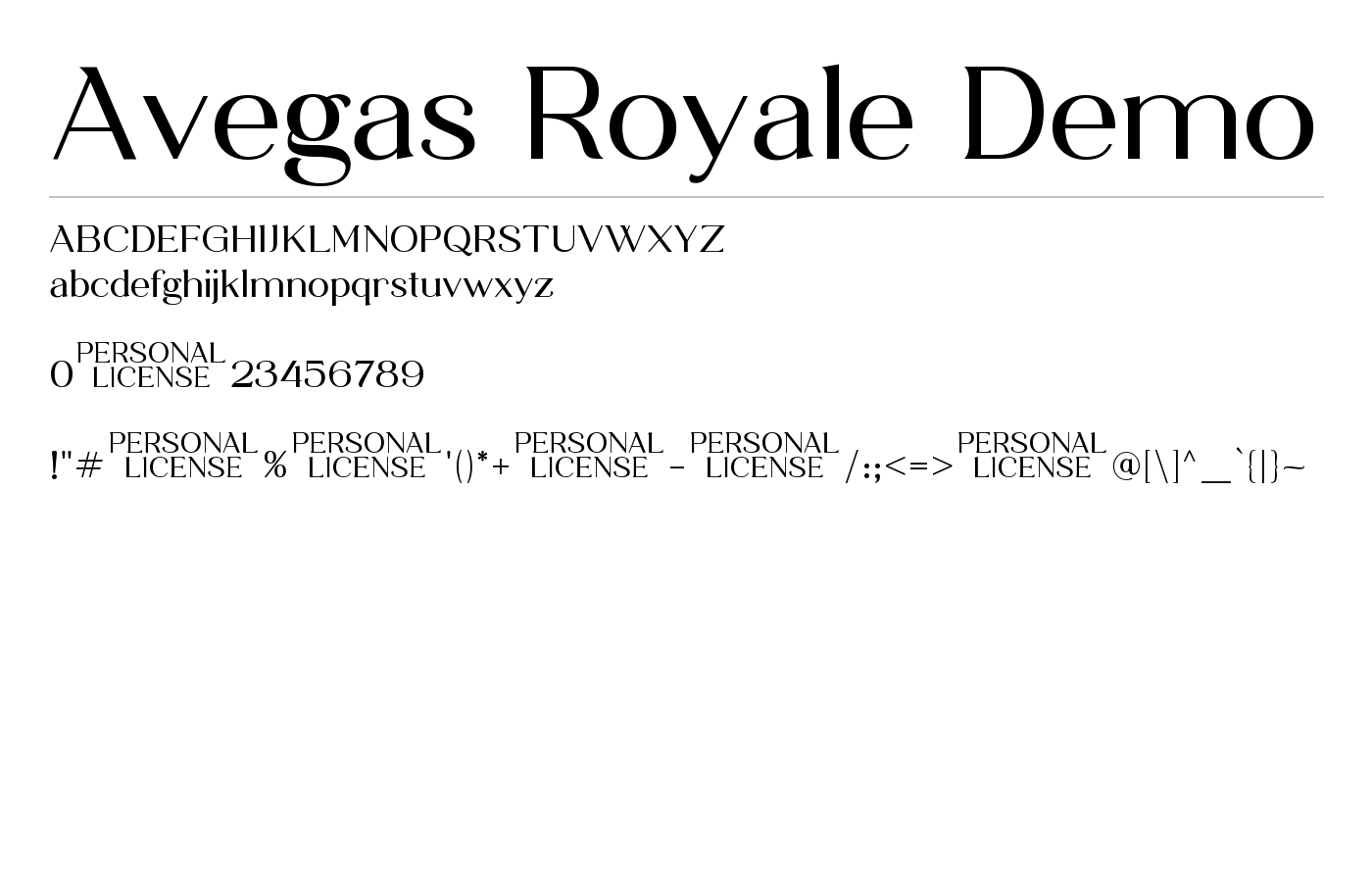
Avegas Royale Demo is an elegant serif font with a refined modern style characterized by high contrast between thick and thin strokes, and thin, delicate serifs. Its tall x-height and graceful letterforms, including distinctive double-story 'a' and 'g', give it a sophisticated yet approachable feel, making it ideal for luxury branding, editorial headlines, and stylish packaging. This font works best where a touch of classic refinement and high-end appeal is desired.
Avegas Royale Demo Font
About Avegas Royale Demo Font